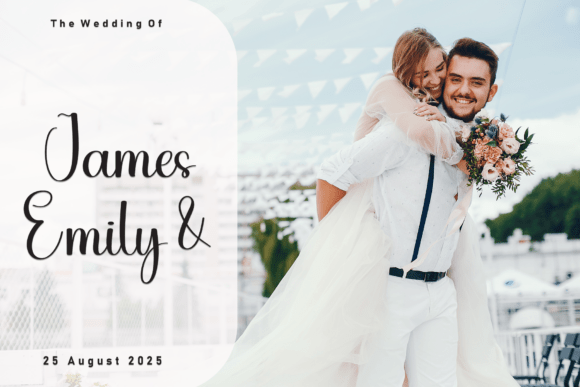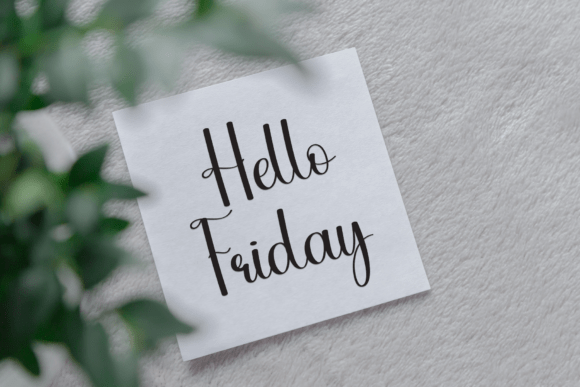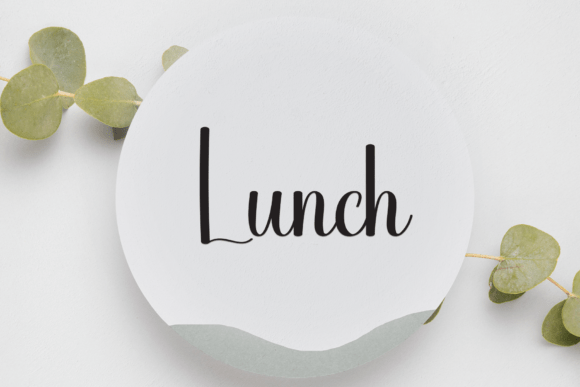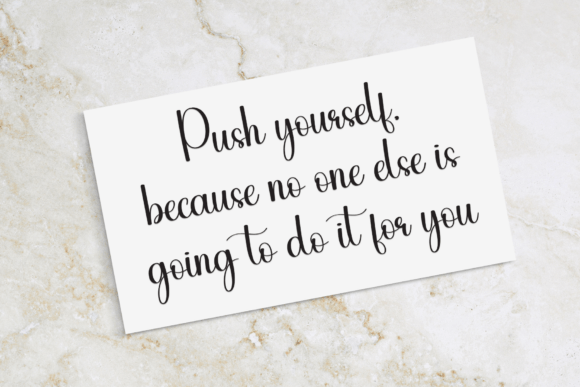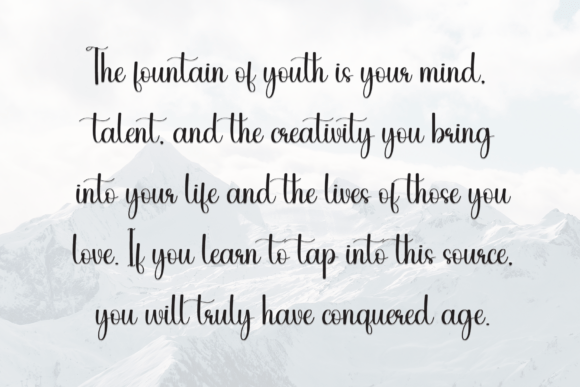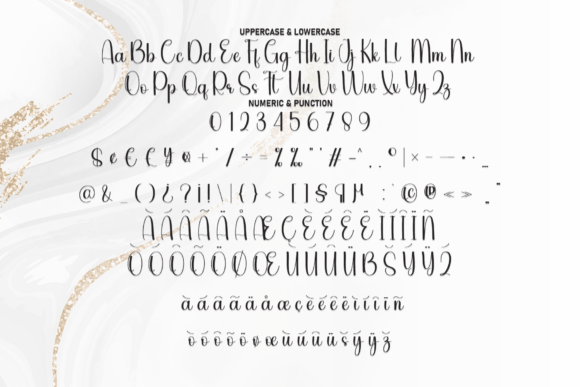
The Elegance of Elegant Font: A Designer’s New Best Friend
I still remember the project that led me to discover the Elegant font. I was working on a wedding invitation design for a client who wanted something that exuded sophistication and romance. As I scrolled through font after font, nothing seemed quite right – until I stumbled upon Elegant. Its fluid curves and graceful strokes instantly captured the essence of what I was looking for. It was as if the font was tailor-made for that project, and I’ve been hooked ever since.
What I Love About Elegant Font
- ✨ Elegant and contemporary charm: This font truly brings a touch of luxury to any design.
- ✅ Versatility: It’s perfect for a wide range of applications, from logos and invitations to packaging and social media graphics.
- 💫 Natural flow and polished details: The font’s fluidity and attention to detail make it a joy to work with.
While Elegant Font is incredibly versatile and beautiful, there are a few things to keep in mind:
- ⚠️ Legibility at small sizes: Like many script fonts, Elegant can be a bit tricky to read at very small sizes. It’s best used at larger sizes where its details can shine.
- 🤔 Pairing with other fonts: Due to its distinctive style, it can be a bit challenging to pair with other fonts. It’s essential to choose complementary fonts that don’t compete with Elegant’s elegance.
The Story Behind Elegant Font
Elegant Font was inspired by the beauty of hand-drawn calligraphy, brought into the digital age with a modern twist. Its creator aimed to capture the fluidity and elegance of traditional calligraphy while making it accessible and versatile for digital and print designs. The result is a font that feels both timeless and contemporary.
Q: Is Elegant Font suitable for body text?
A: While Elegant Font is beautiful, it’s primarily designed for headlines and short texts due to its script nature. For body text, a more straightforward font might be more readable.
Q: Does Elegant Font include any special features?
A: Yes, Elegant Font comes with a range of OpenType features, including stylistic alternates, swashes, and glyphs, which can be accessed in compatible software to add more variety to your designs.
Q: Is Elegant Font easy to read?
A: Elegant Font is designed to be elegant and readable at larger sizes. However, like many script fonts, it may be less readable at very small sizes. It’s best used for titles, headings, and short texts.